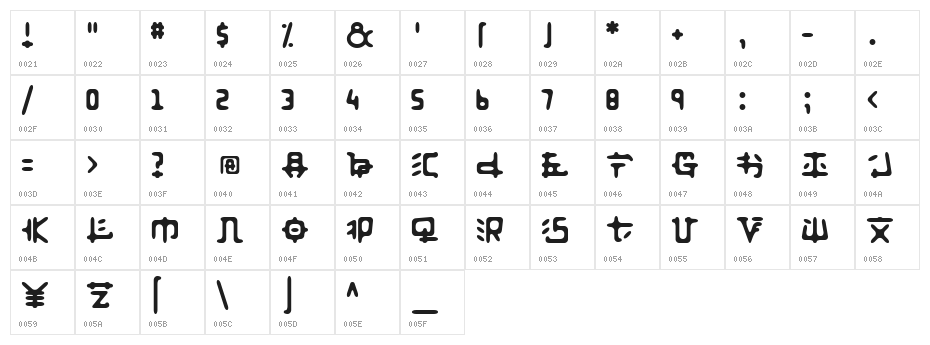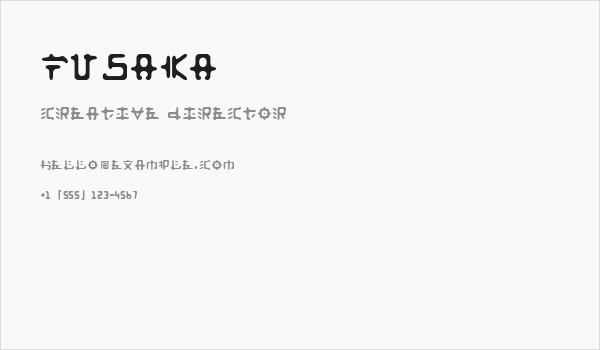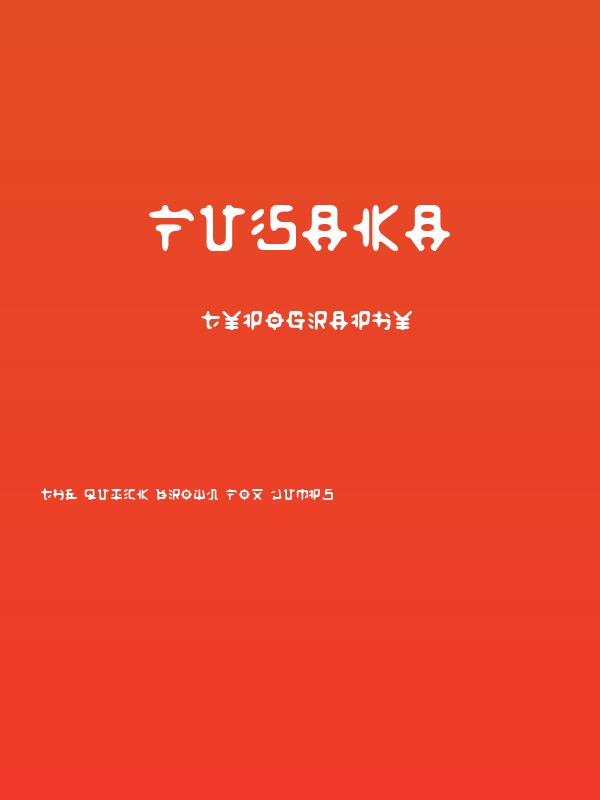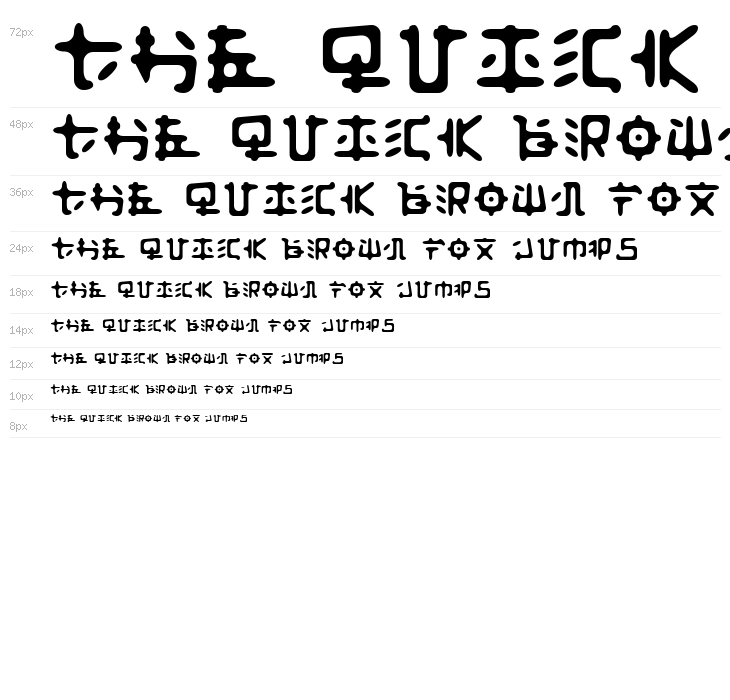
Fusaka Font
Fusaka Description
This font features a unique and bold design with a futuristic and abstract aesthetic. The characters are composed of thick, rounded strokes with distinctive geometric shapes that create a sense of movement and energy. The uppercase and lowercase letters maintain a consistent style, with each character exhibiting a playful yet structured form. Numbers and special characters follow the same design principles, ensuring uniformity across the typeface. The overall appearance is eye-catching and suitable for creative and modern projects.
| Proposed Projects | Ideal for sci-fi themed designs, video game graphics, posters, and branding that requires a modern and edgy look. |